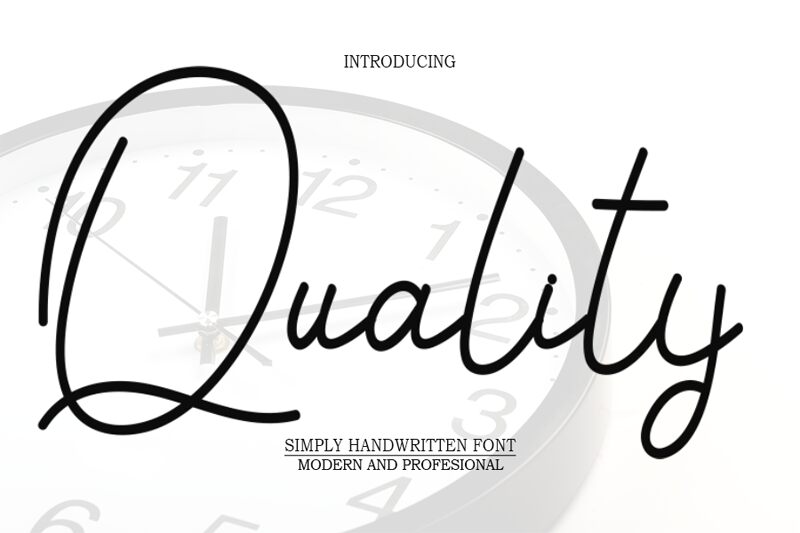
Quality font by Etik Fatimah is a free handwritten font with a casual elegance. It has a natural, relatable look, making it the perfect go-to font for professionals and brands who want their visual communication to be approachable and casual, yet visually robust.
A contemporary feel combined with a personal touch gives this typeface a modern sensibility. With its subtle sophistication, versatility in usage is guaranteed. Use it on business cards, resumes, headers, photo signatures, branding projects, posters, packaging design, and more. Explore the use of this font in light of small businesses and organizations with informal goals.